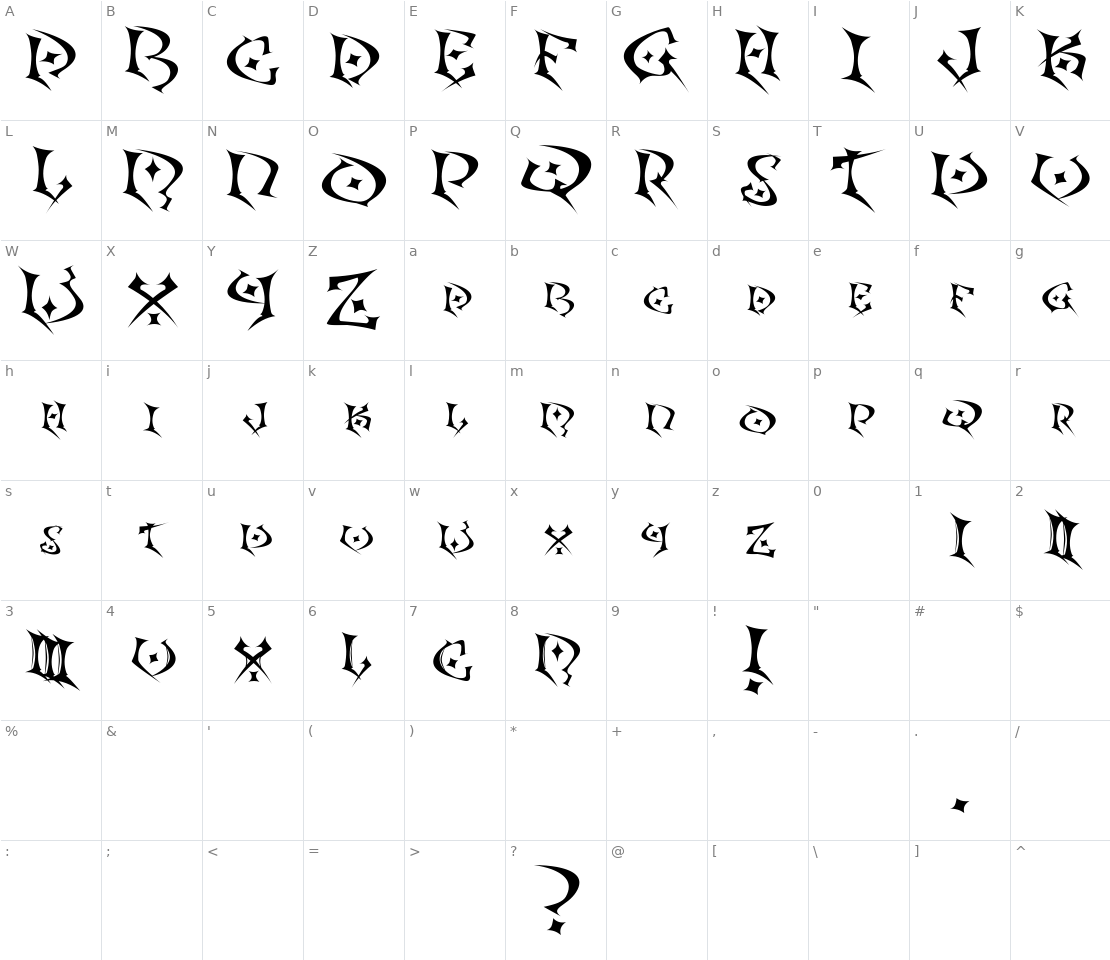
Kefka
Kefka is a sharp, angular gothic display face from Matt Perkins with letterforms that feel like they were cut from blackletter tradition and then stripped of any softness. The pointed terminals and aggressive geometry give it a dark, medieval intensity that works for band logos, horror titles, game branding, and headlines where menace is the whole point. It reads best at large sizes where those jagged details can do their work.